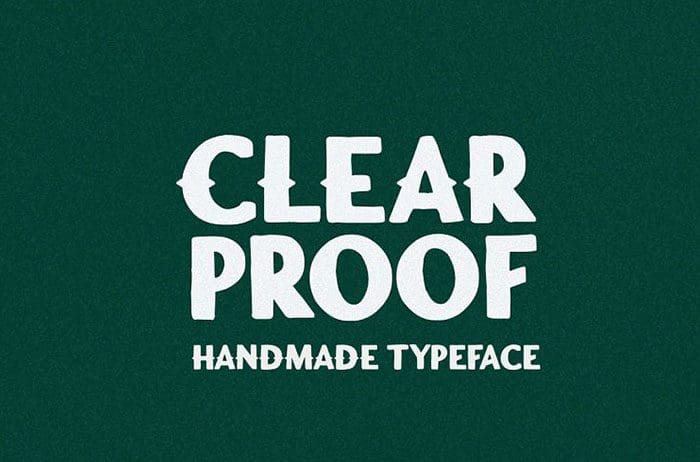
Clear Proof Sans Serif Font
Clear Proof sans serif font. This font is suitable for vintage designs, T-shirts, logos, labels, posters, lettering projects, quotes, package designs and etc. Get inspired by its charm and start using it for any creative projects. This font is available only for personal use. Created this font by Epiclinez. You can also search more freeĀ Fonts.